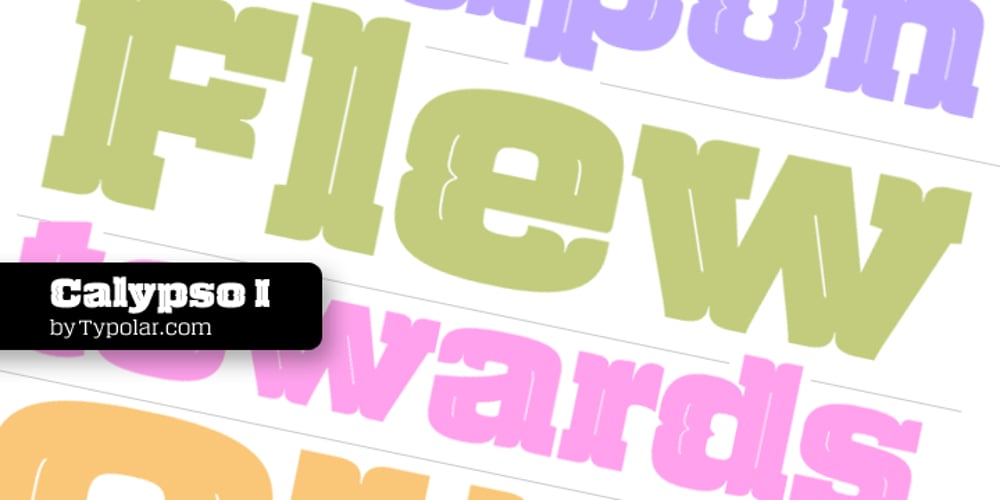
Calypso I Font Family was designed by Jarno Lukkarila and published by Typolar. Calypso I contains 1 styles and family package options. Calypso I (Italian) draws its inspiration from type founders’ plentiful show-off-letters, which were typical on title pages and lithographs in the early 19th century. It borrows luscious details from these but inherits a stiff modern backbone from its parent, Calypso E (Egyptian). Within the Calypso type family all fonts share the same dimensions and work together consistently. Calypso I supports many languages and includes, for example, four sets of basic numerals, circled numbers, alternative characters, case sensitive forms and dingbats. Give it a go on drop caps and headlines or even set short paragraphs with it. It loves colour and effects.